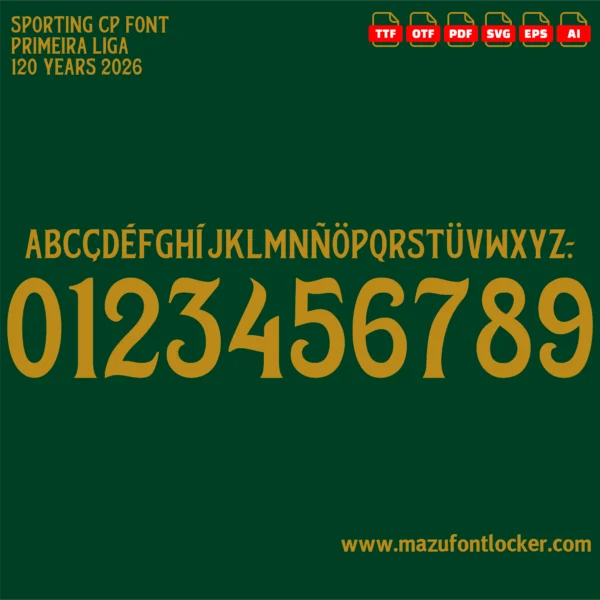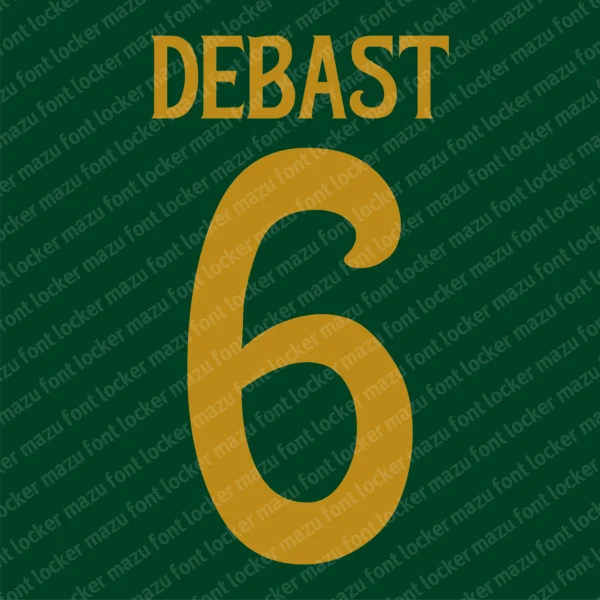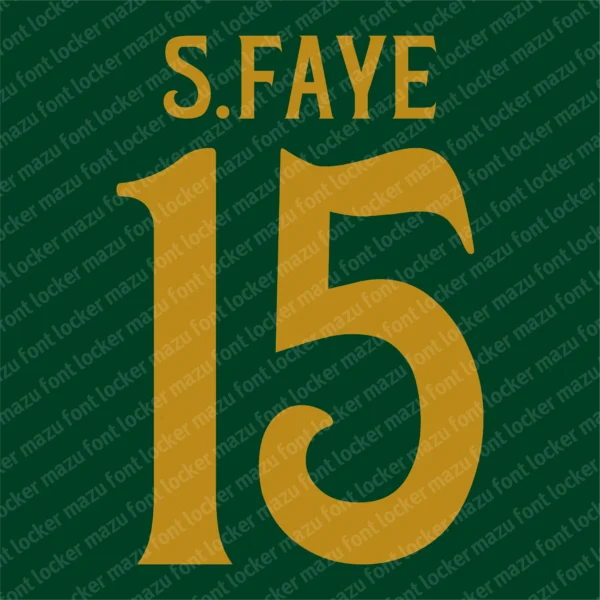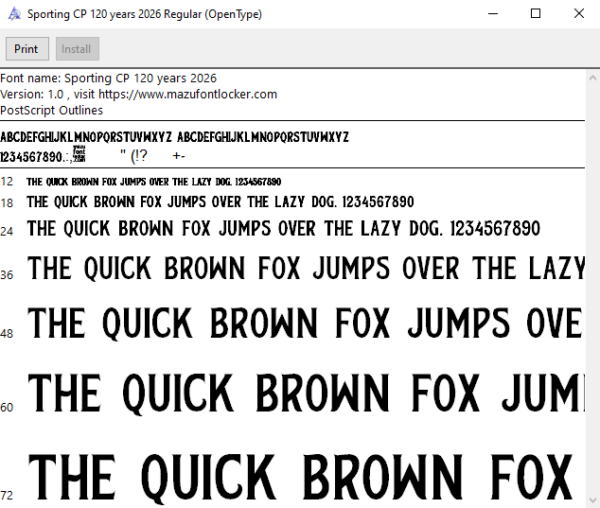
Sporting CP 120 Years 2026 Font Vector – Stunning Lions Anniversary Masterpiece
This premium font faithfully recreates the elegant, powerful, and heritage-inspired typography that honors The Lions—delivering the timeless spirit of Portuguese football, championship ambition, fearless determination, academy excellence, and the extraordinary legacy that has established Sporting CP as one of Portugal’s most iconic, respected, and historically successful football clubs for 120 unforgettable years.
Sporting CP 120 Years 2026 Font Vector – Stunning Anniversary Heritage Typeface
The Sporting CP 120 Years 2026 Font Vector is a premium typeface that faithfully recreates the official match lettering featured on Sporting Clube de Portugal’s special 120th Anniversary kit. Designed with exceptional precision, this high-quality vector font captures the elegant typography introduced alongside the club’s historic commemorative identity celebrating 120 years since its foundation in 1906.
Perfect for professional designers, football collectors, jersey customizers, and Sporting CP supporters, the Sporting CP 120 Years 2026 Font Vector delivers authentic lettering for anniversary jersey mockups, football merchandise, historical recreations, sports branding, fan artwork, and digital content. Every character has been carefully recreated to match the official anniversary kit worn during the club’s landmark celebration.
Why Choose Sporting CP 120 Years 2026 Font Vector
This font faithfully reproduces the official shirt lettering used on Sporting CP’s exclusive 120th Anniversary jersey. Every letter and numeral has been meticulously vectorized to ensure professional-quality results for football shirt customization, commemorative projects, print media, and digital graphics. Whether you’re creating collector-inspired artwork or realistic kit concepts, the Sporting CP 120 Years 2026 Font Vector delivers exceptional authenticity.
The lettering features a refined, modern, and elegant design that complements Sporting CP’s commemorative visual identity. Inspired by the club’s new brand identity and timeless heritage, the typography balances tradition with contemporary aesthetics while maintaining excellent readability across all applications.
The numerals accurately replicate the official anniversary squad numbers featured on the limited-edition 120 Years jersey. Every number is professionally vectorized for flawless scalability, making it suitable for jersey printing, posters, banners, and premium football graphics.
- Complete uppercase A–Z and numbers 0–9 in authentic Sporting CP 120 Years 2026 style
- Extended multilingual Latin character support with diacritics
- Includes accurate crest glyph positioning for realistic jersey customization
Sporting CP 120 Years Anniversary 2026
In 2026, Sporting Clube de Portugal celebrated its 120th anniversary with the launch of a special limited-edition commemorative jersey and an entirely new visual identity. The anniversary kit debuted the club’s refreshed crest, introduced the new Sporting Sans typography, and paid tribute to the club’s rich heritage dating back to 1906. Limited to just 1,906 numbered jerseys, the anniversary release became one of Sporting CP’s most memorable collector editions in recent history.
The commemorative typography reflects the club’s philosophy of honoring its legacy while embracing a modern identity, making this font an ideal choice for authentic football design projects and historical recreations.
The Sporting CP 120 Years 2026 Font Vector is an independently designed typeface package created to replicate the official shirt lettering featured on Sporting CP’s 120th Anniversary kit. It is ideal for football-inspired artwork, collector projects, jersey customization, sports branding, and historical recreations.